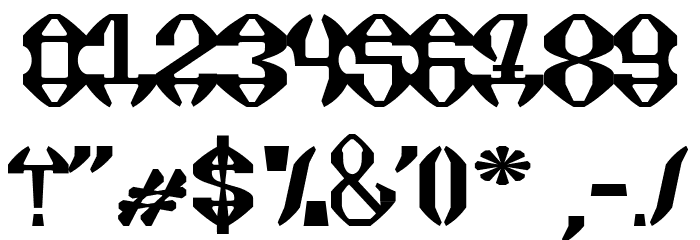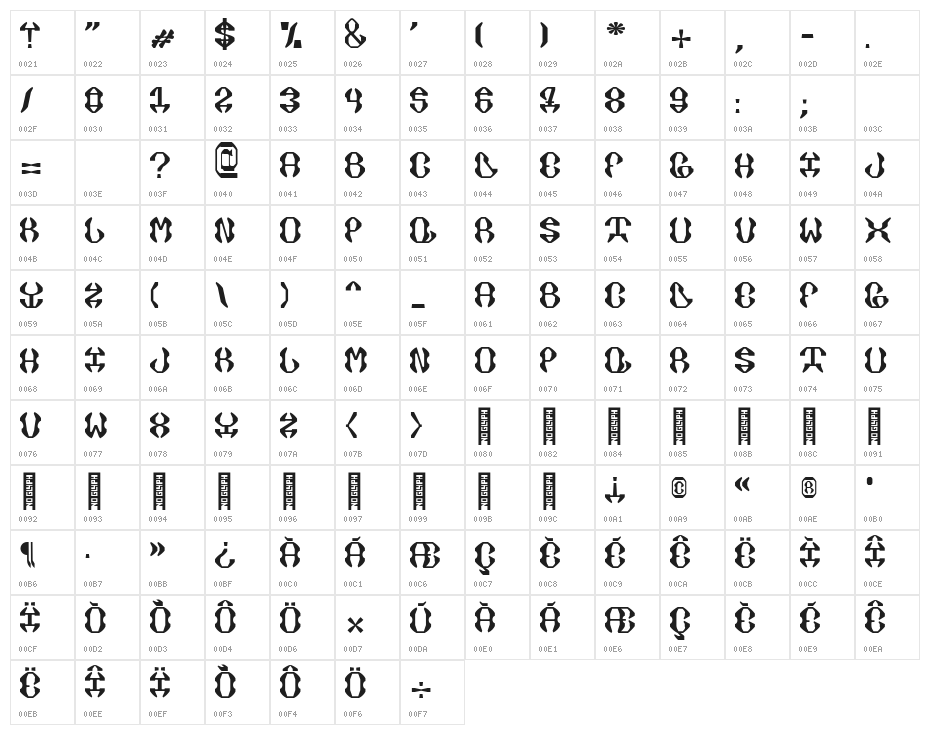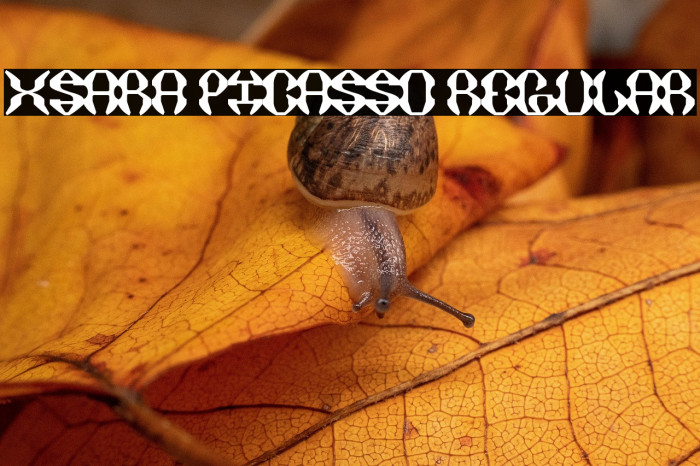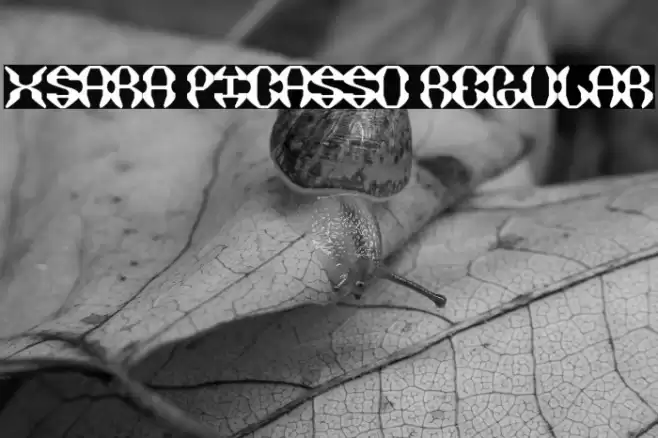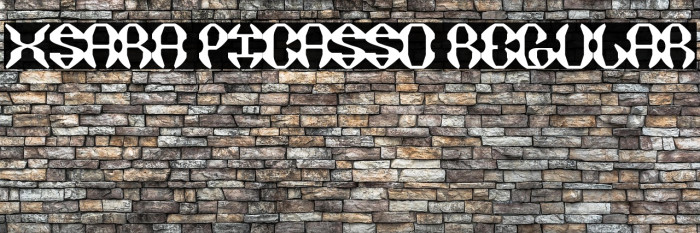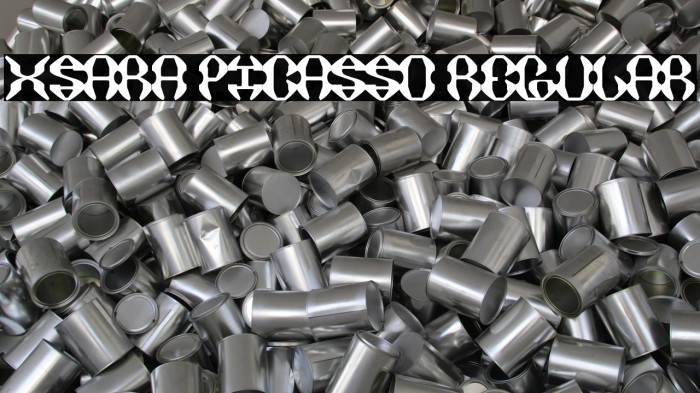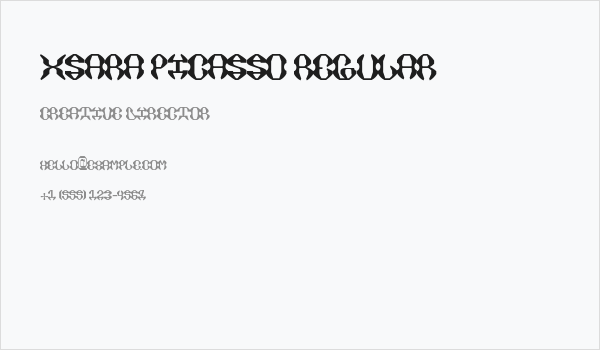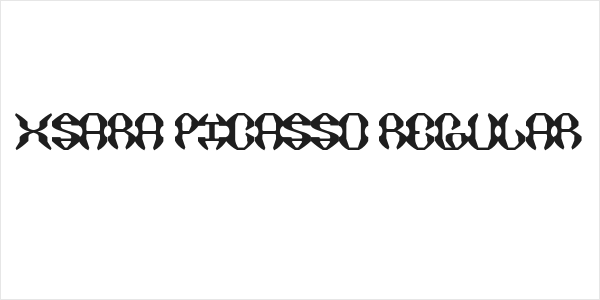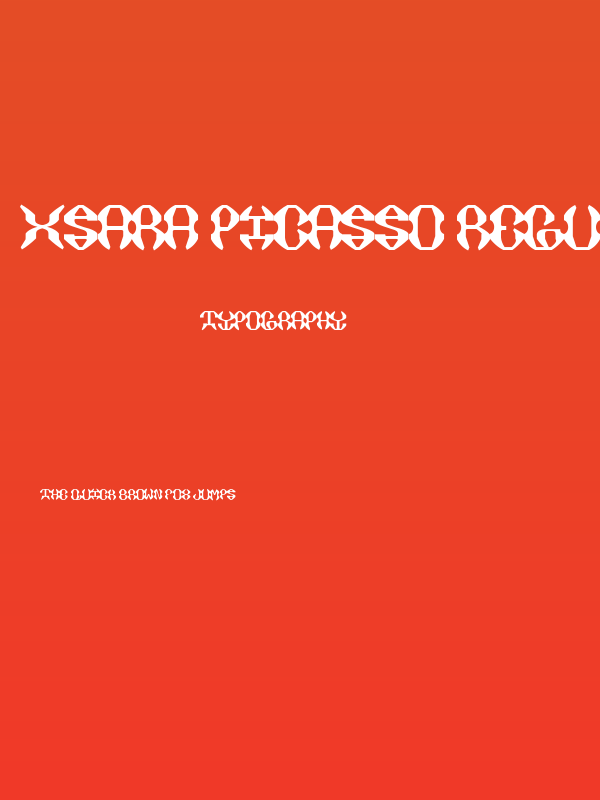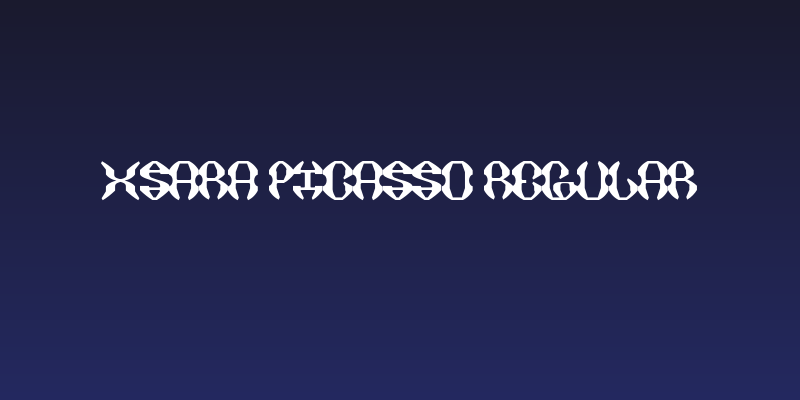
XSARA PICASSO Regular Font
This font features a bold, geometric design with a distinct, angular style. Each character is crafted with sharp edges and a unique, interlocking pattern that creates a sense of movement and complexity. The uppercase and lowercase letters maintain a consistent aesthetic, while the numbers and special characters complement the overall design. This font's boldness and intricate detailing make it stand out, offering a modern yet slightly futuristic feel.